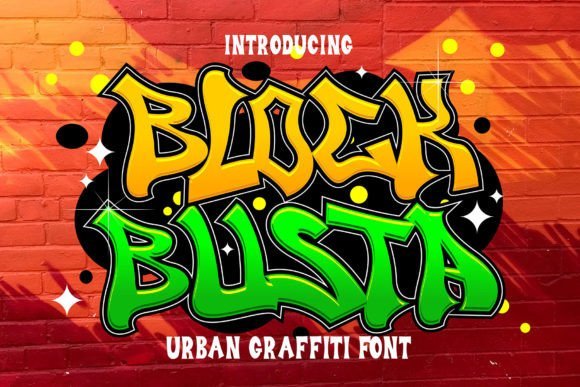
The Power of Street Art: Unleashing the Block Busta Font
You’re browsing through a vintage record store, surrounded by old posters and flyers that scream attitude and rebellion. Suddenly, a particular font catches your eye – bold, edgy, and full of character. That’s when you know you’ve found the perfect font for your next project. For designers looking to add a touch of urban grit to their designs, the Block Busta Font is an urban graffiti font that embodies the spirit of street art.
With its sharp edges and bold look, Block Busta Font is ideal for music posters, apparel designs, shirts, and streetwear. Whether you’re creating a strong and powerful statement or simply adding a touch of attitude to your designs, this font is the perfect choice. Its unique style makes it a valuable asset for designers who want to bring a touch of edginess to their projects.
Block Busta Font Key Features
- Unique Characteristic: Features a bold, graffiti-inspired aesthetic with intricate details and textures, making it ideal for urban and edgy designs
Block Busta Font Review
Overall, I think Block Busta Font has some unique qualities that could make it a great choice for certain projects, but it’s not without its limitations. Let’s dive in!
- Its bold, playful feel is perfect for creating a fun and energetic vibe.
- The font is highly legible, even at smaller font sizes.
- It comes in a wide range of weights and styles, giving you plenty of options for customization.
- The font can feel a bit over-the-top for more serious or professional projects.
- It may not be the best choice for projects that require a lot of fine detail or precision typography.
- The font’s boldness can sometimes make it feel a bit too “in-your-face” – use with caution!
Block Busta Font is a fun, energetic font that’s perfect for projects where you want to make a statement. While it may not be the best choice for every project, it’s definitely worth considering for anything that needs a bold, playful vibe. Just be mindful of its limitations and use it wisely!
Block Busta Font is perfect for creating bold, eye-catching headings and titles. It’s also great for adding a touch of edginess to your designs.
Some common use cases for Block Busta Font include:
- Headlines and titles in marketing materials
- Typography in streetwear and urban fashion designs
- Adding a bold touch to social media graphics
Alternatives to Block Busta Font for Designers
Abril Fatface is a high-contrast, elegant font suitable for headings and titles. It’s an ideal choice for designs that require sophistication and refinement. Compared to Block Busta Font, Abril Fatface has a more refined feel, with a focus on elegance rather than ruggedness.
Akzidenz-Grotesk
Akzidenz-Grotesk is a sans-serif font with a neutral, industrial feel. It’s perfect for designs that require a clean and modern aesthetic. In contrast to Block Busta Font, Akzidenz-Grotesk is more minimalist and lacks the bold, playful feel of the original font.
Playfair Display is an elegant, luxurious font ideal for high-end designs and luxury branding. It features intricate details and a classic feel, making it a great alternative to Block Busta Font for designs that require sophistication and refinement. However, Playfair Display is more ornate and less bold than Block Busta Font.
Codystar
Codystar is a modern, geometric font with a bold and playful feel. It’s suitable for designs that require a fun and energetic vibe. Compared to Block Busta Font, Codystar has a more modern and sleek feel, with a focus on geometric shapes rather than rough textures.